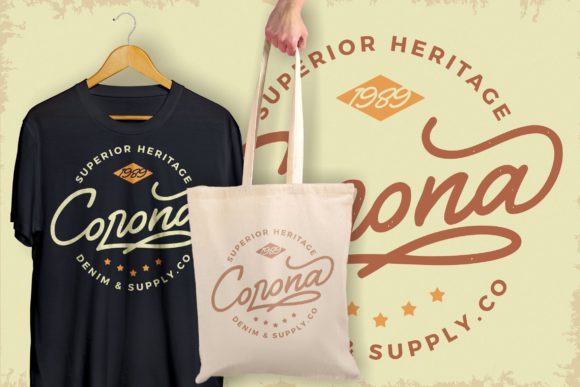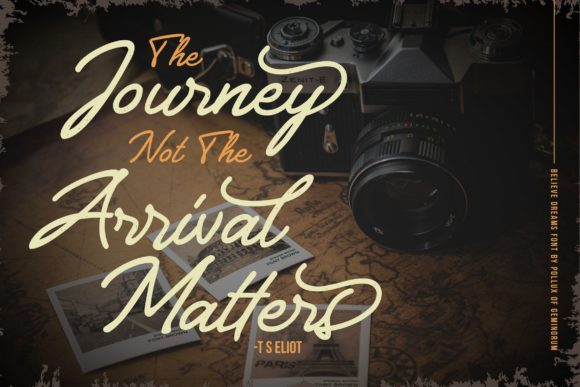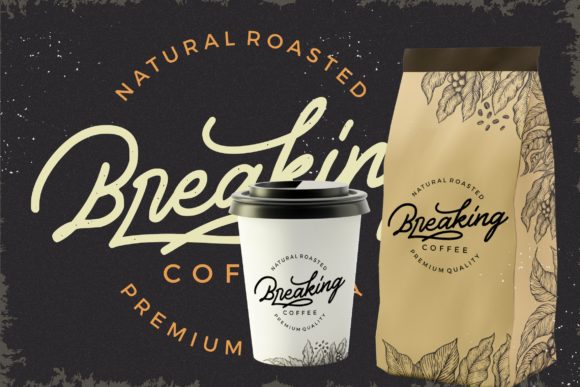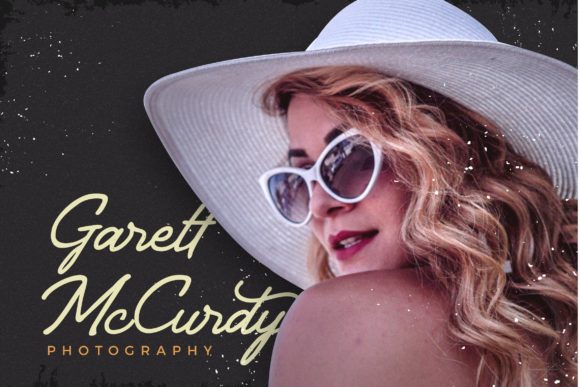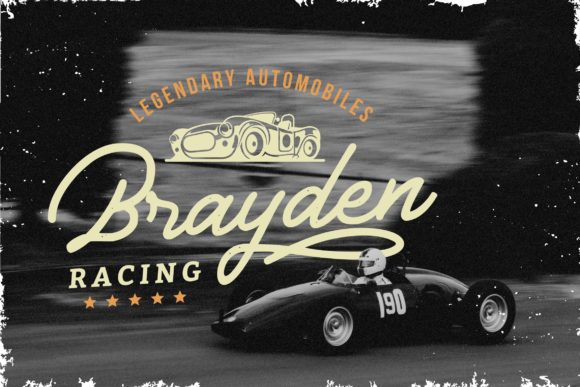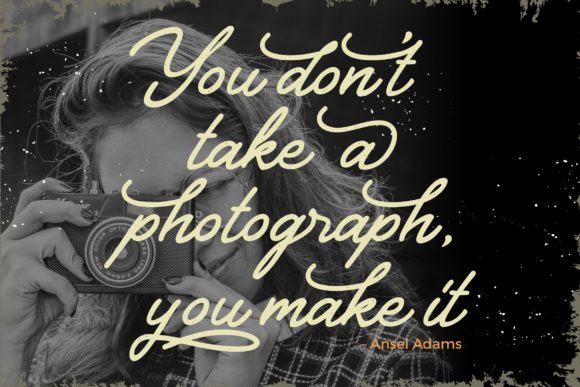
The Perfect Font to Bring Your Dreams to Life
Have you ever found yourself sitting at your desk, staring at a blank page, and wondering what to create next? You have a vision in your mind, but the words just won’t flow. That’s where Believe Dreams Font comes in – a flowing handwritten font that brings elegance and sophistication to your designs.
Designed to inspire creativity, Believe Dreams Font is the perfect addition to any project. With its unique and timeless style, it’s no wonder why designers fall in love with it. Whether you’re working on a wedding invitation, a blog post, or a social media campaign, Believe Dreams Font is sure to elevate your design game. Its distinct style and versatility make it a valuable asset for any designer looking to add a touch of personality to their work.
Believe Dreams Font Key Features
- Unique Characteristics: Believe Dreams Font features a unique blend of modern and vintage elements, with intricate details and ornaments that add a touch of elegance to any design.
- Style Options: Believe Dreams Font offers a range of style options, including regular, bold, italic, and bold italic, allowing designers to experiment with different looks and feels.
Believe Dreams Font Review
Overall, I think the Believe Dreams Font is a great addition to any designer’s toolkit. Here are some of its strengths: ✨
- Unique and creative design: The Believe Dreams Font has a distinct, dreamy quality to it that can add a touch of whimsy to any project.
- Highly customizable: With its wide range of styles and font sizes, this font is perfect for designers who like to experiment with different looks.
- Works well for body text: Despite its decorative nature, the Believe Dreams Font is surprisingly readable, making it a great choice for body text.
However, there are a few limitations to keep in mind: ⚠️
- Not ideal for headings: While the Believe Dreams Font is great for body text, it may not be the best choice for headings due to its relatively small size and delicate design.
- May not be suitable for busy designs: With its intricate details and ornate design, the Believe Dreams Font may get lost in busy or cluttered designs.
In terms of overall impression, I’d say the Believe Dreams Font is a solid choice for designers who want to add a touch of personality to their projects. While it may have some limitations, its unique design and high level of customizability make it a great addition to any designer’s toolkit.
The Believe Dreams font is a unique, cursive script font that can add a touch of elegance and sophistication to your designs. To use this font, you can download it from various font websites or use it through online design platforms.
To get the most out of the Believe Dreams font, try using it in combination with other elegant fonts, such as serif or script fonts.
Use the font for titles, headings, and other prominent text elements to add a touch of sophistication to your design.
Experiment with different font sizes and styles to create a unique and eye-catching design.
The Believe Dreams font is ideal for:
Quotes and inspirational graphics
Any design that requires a touch of elegance and sophistication